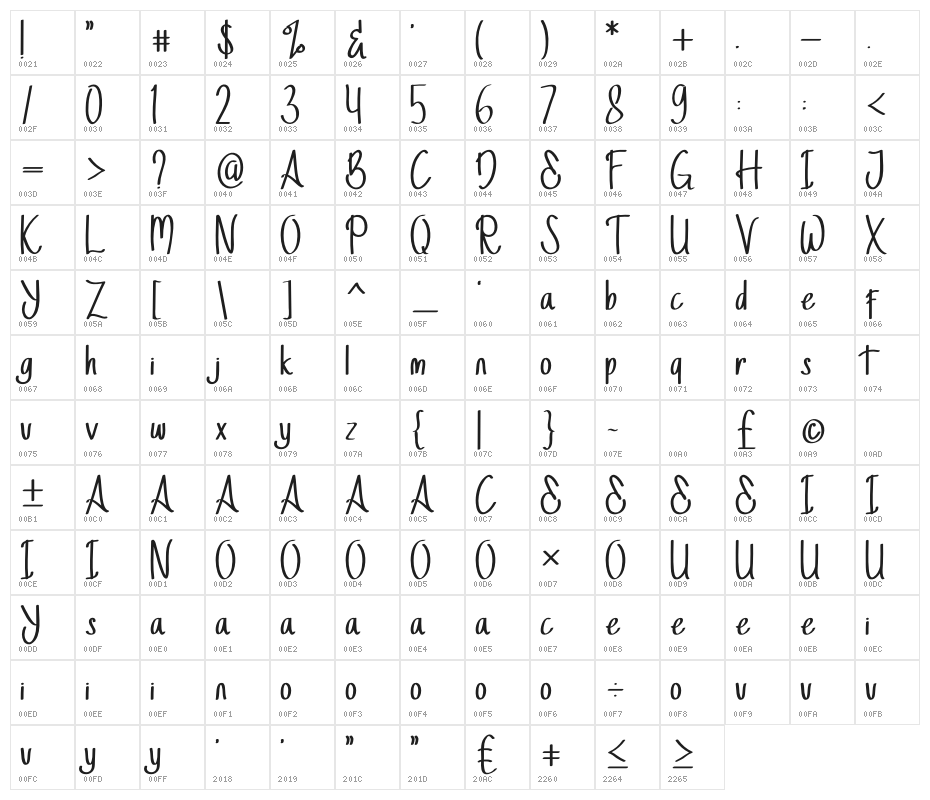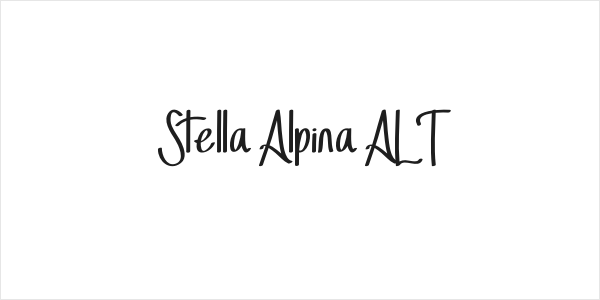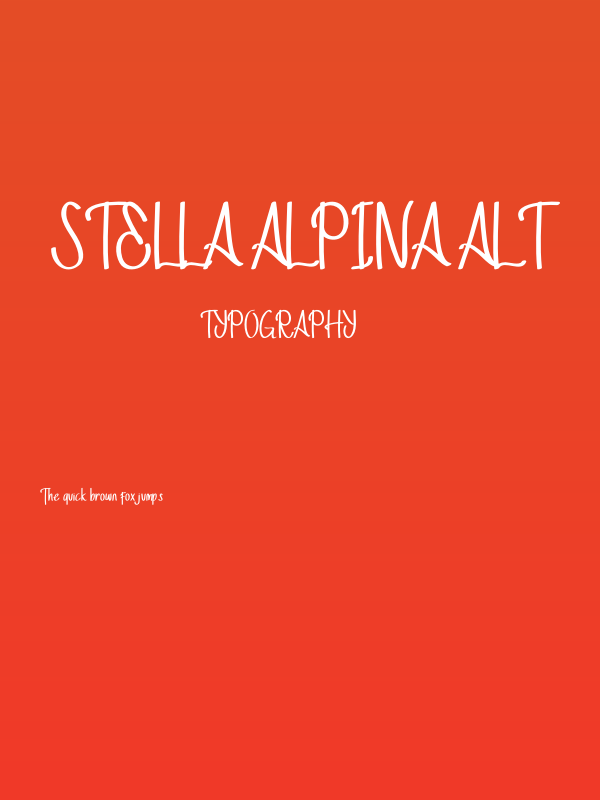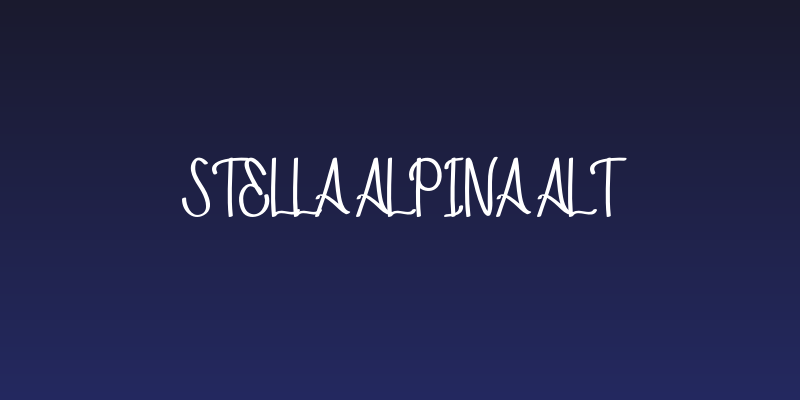
Stella Alpina ALT Font
Stella Alpina ALT Description
This font features a playful and dynamic handwritten style, characterized by its tall, narrow letterforms and slightly irregular strokes. The uppercase letters exhibit a whimsical flair, with varying stroke widths that add a sense of movement and energy. The lowercase letters maintain a consistent style, complementing the uppercase with their own unique charm. Numbers and special characters follow the same lively aesthetic, ensuring a cohesive look across all text elements. The overall appearance is both casual and artistic, making it suitable for projects that require a personal touch.
| Overall Style | Casual, Artistic |
| Proposed Projects | Ideal for greeting cards, invitations, personal branding, and creative projects that benefit from a whimsical, handwritten touch. |